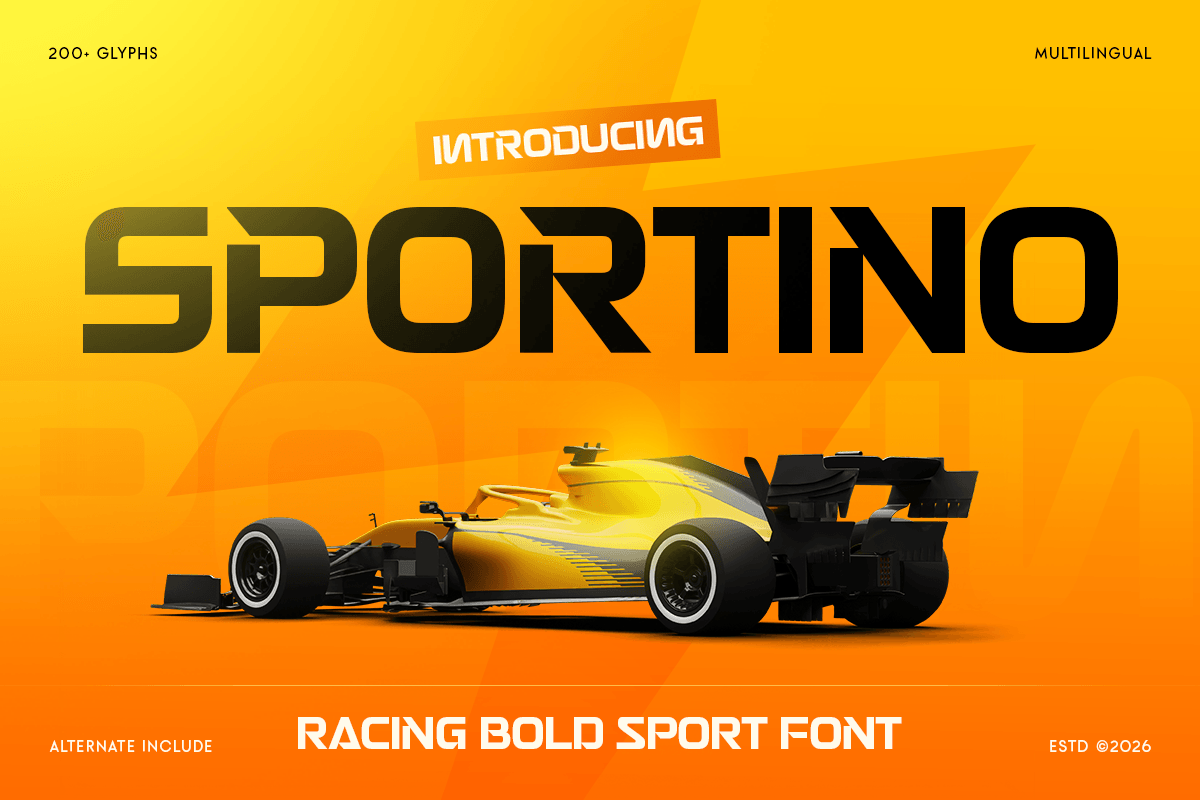
Sportino
-Racing Bold Sport FontSportino - Racing Bold Sport Font
SPORTINO is a racing bold sport font designed to deliver speed, strength, and high-energy impact in every letter. With bold construction, dynamic rhythm, and a racing-inspired attitude, this typeface creates a powerful visual tone that feels fast, competitive, and instantly attention-grabbing.
Built for sport and racing-focused branding, SPORTINO works beautifully across racing logos, team identities, fitness campaigns, tournament posters, event banners, website headers, social media graphics, signage, and promotional visuals. Its bold display structure keeps every headline strong and readable while adding motion, confidence, and performance-driven character across both digital and print layouts.
Whether you’re creating a motorsport identity, designing athletic promotions, building competitive branding, or crafting bold event visuals, SPORTINO provides a fast typographic foundation that makes your design feel energetic, modern, and unforgettable.
Inspiration Behind SPORTINO
SPORTINO is inspired by racing graphics and modern athletic typography—where speed, power, and sharp movement define the visual language. The design focuses on bold rhythm, sporty precision, and dynamic structure to support racing headlines, competitive branding, and performance-focused design systems.
SPORTINO Font Features:
Racing bold sport letterforms with dynamic athletic character
Perfect for racing logos, sport branding, and performance headlines
Strong readability for posters, banners, and competitive campaigns
Dynamic structure for speed-driven and energetic typography
Racing logos, sport branding, and athletic identity systems
Fitness campaigns, tournament posters, and event promotions
Team graphics, motorsport visuals, and competitive headlines
Website headers, social media graphics, and digital ads
Signage, banners, and high-energy marketing layouts